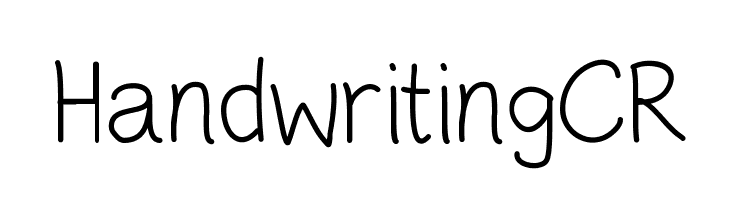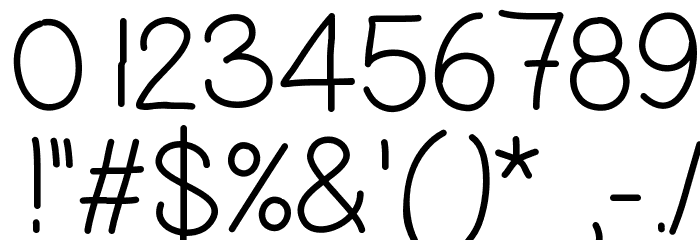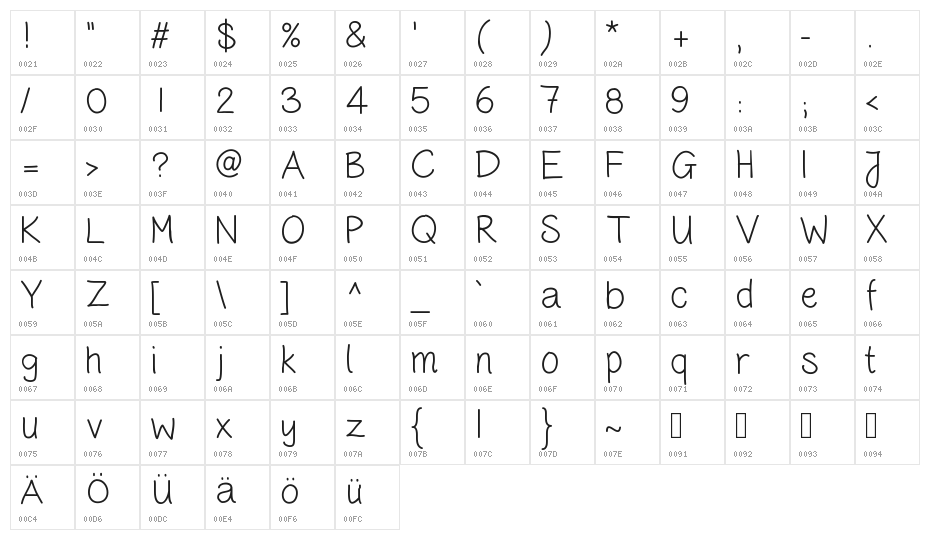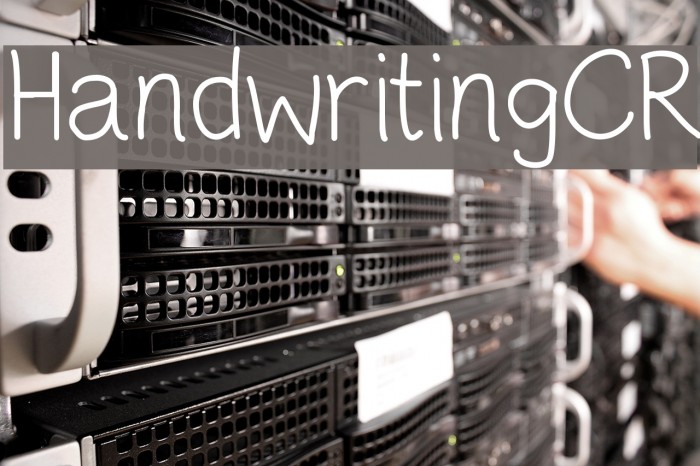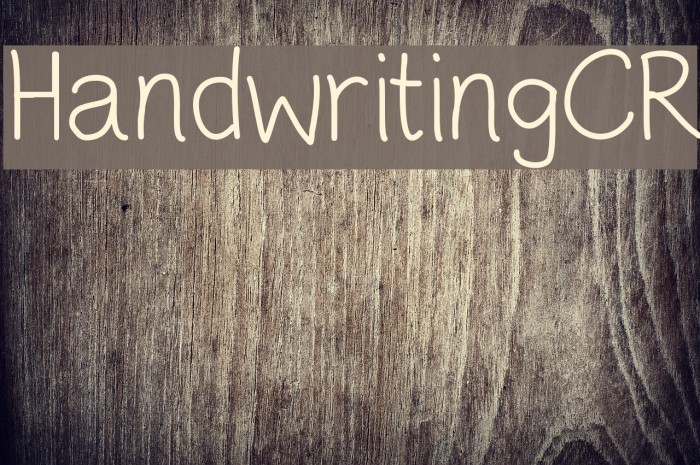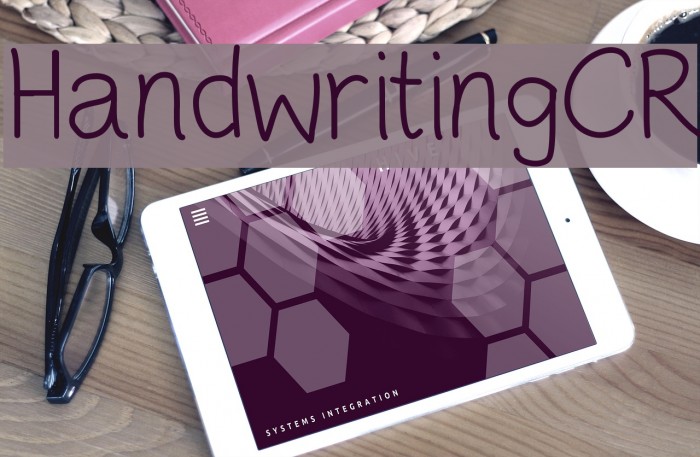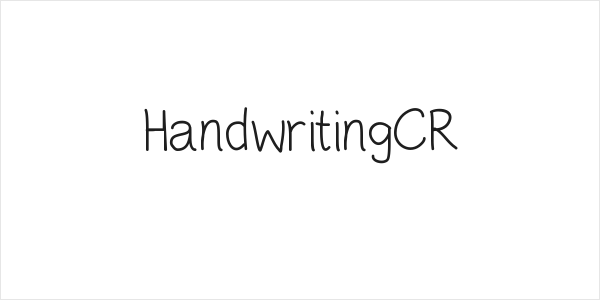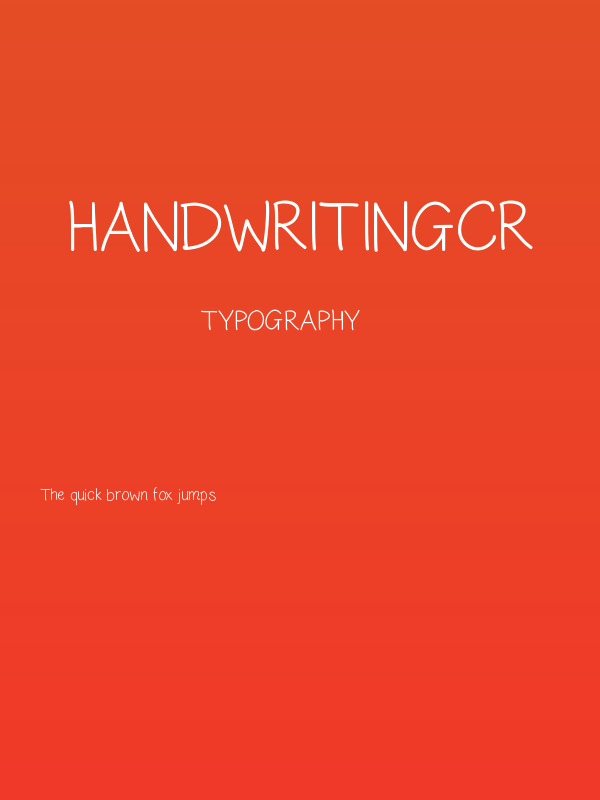
HandwritingCR Font
HandwritingCR Description
This font features a playful and casual handwritten style, characterized by its smooth, flowing lines and slightly irregular shapes. The uppercase and lowercase letters maintain a consistent height, giving it a balanced appearance. The numerals and special characters are designed to complement the alphabet, with a similar whimsical touch. The strokes are uniform in thickness, providing a clean and approachable look. This font is ideal for projects that require a personal and friendly tone, such as invitations, greeting cards, or children's books.
Overall StyleCasual
Use CaseHeadlines, Informal text, Creative projects
Proposed ProjectsIdeal for invitations, greeting cards, children's books, and personal projects.